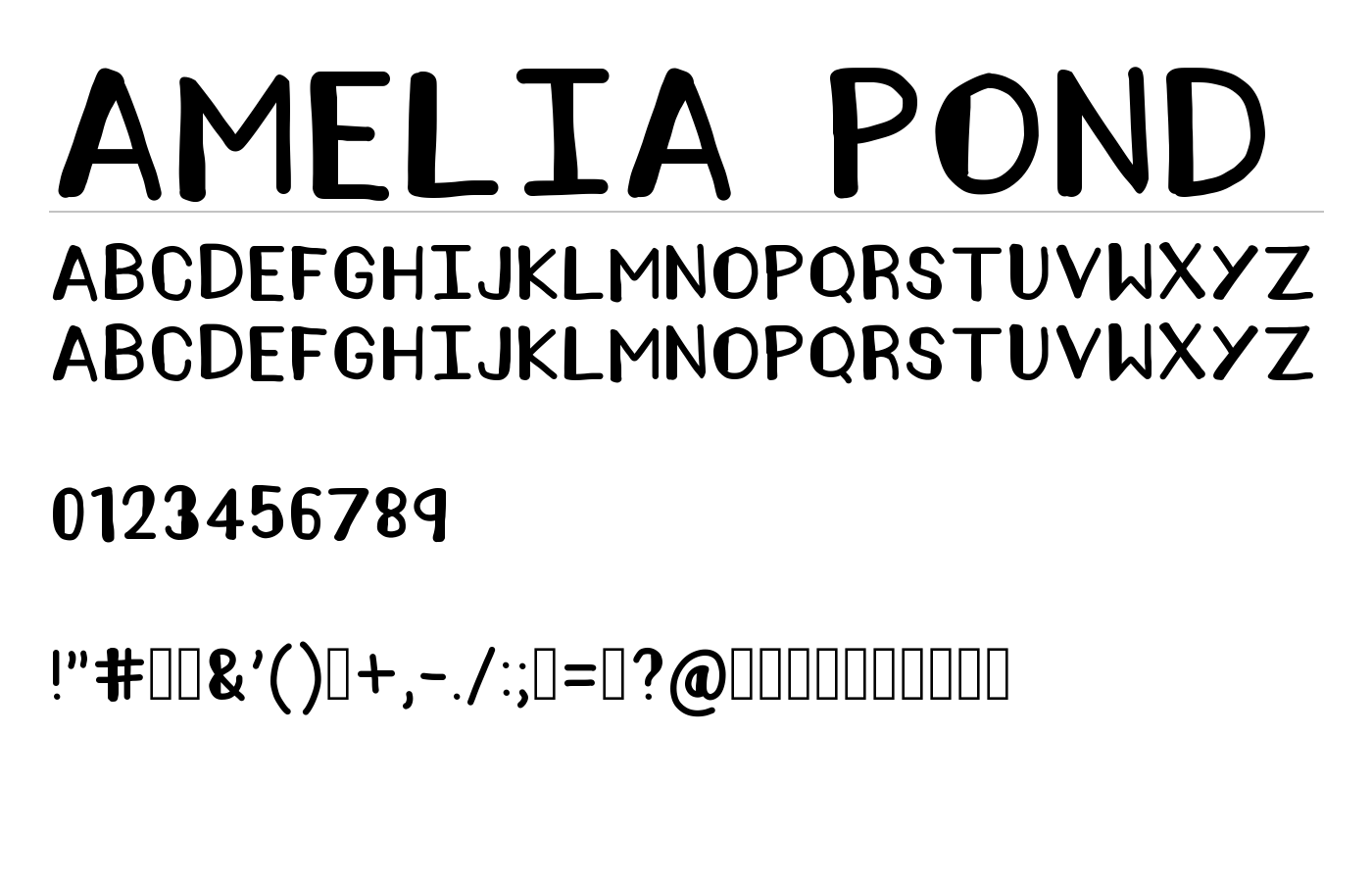
Amelia Pond is a playful and casual sans serif font with a hand-drawn, slightly uneven style that adds a friendly and approachable feel. Its rounded strokes and varied letterforms make it ideal for informal, creative projects like children's books, invitations, or fun branding that seeks a warm, personal touch. This font works best in headlines and display text where its unique character can shine and create an inviting atmosphere.
AMELIA POND Font
About AMELIA POND Font